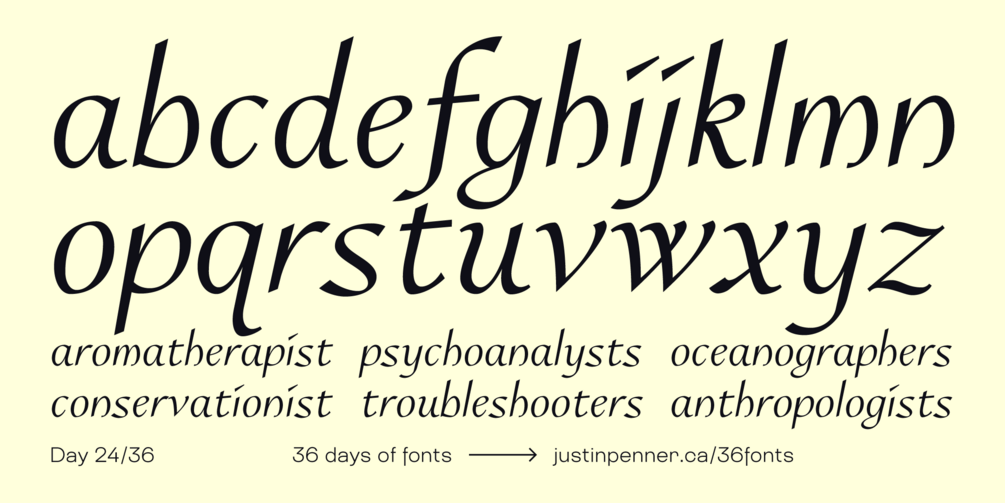
36 Days of Fonts: Day 24
Pen License
I've had an unopened calligraphy set in my cupboard for some years now. It's a skill that would benefit any type designer, but I don't believe it's a requirement by any means. One day I hope to get my "pen license", but in the meantime, here's my first-ever attempt at a traditional italic alphabet.